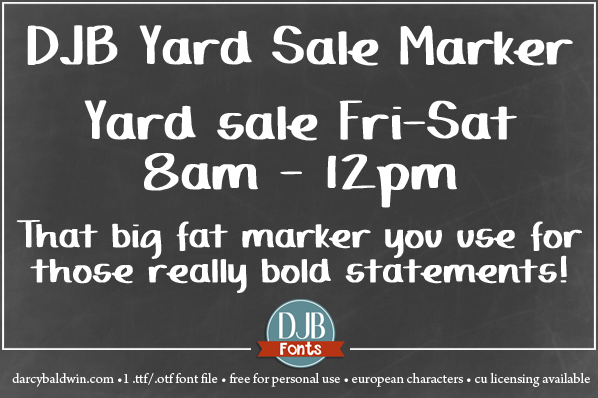
Preview and download DJB Yard Sale Marker Font. Created by Darcy Baldwin in Script Handwritten styles with Free for personal use license.
This font is free for personal use. Any commercial use such as logos, web design, product sales, embroidery font end-sales, books, apps, etc. require a commercial use license available here: http://darcybaldwin.com/commercial-use DJB Yard Sale Marker harkens to the big fat chiseled markers that you used to love to use when you were a kid. This hand drawn font is full of chiseled edges and thick curves, giving it a unique, hand written look. This font contains 1 .ttf/.otf font file with full upper and lower case alpha, numbers, most punctuation, arrows, a few dingbats and European language glyphs. |